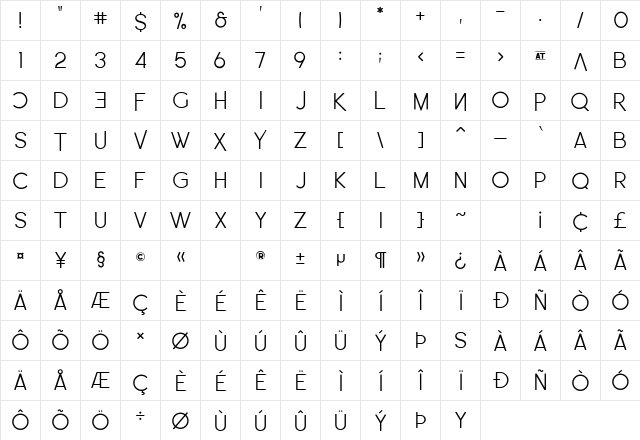
Leo SemiRounded Light
Design Context for Leo SemiRounded Typeface
Leo SemiRounded uses gentle rounded endings to create a warm, inviting typographic personality — less corporate than geometric sans, more refined than playful display fonts. Its slender proportions lend an understated elegance to any composition.
A natural fit for tech startups, health and wellness brands, children's products, and friendly consumer apps.
Font Pairing: Pairs well with a rounded or humanist sans for body copy, maintaining the friendly tone without relying on Leo SemiRounded to carry extended reading.
Pro Tip: Pair Leo SemiRounded with a geometric sans for a balanced system — the rounded softness works as a warm counterpoint to harder-edged companions.